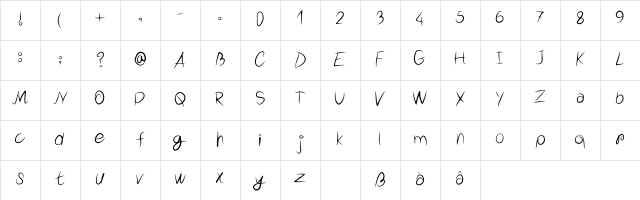
Hair Thinned Regular
Design Context for Hair Thinned Typeface
Hair Thinned is a composed and adaptable typeface that performs quietly and consistently across a wide range of design contexts. The delicate stroke weight brings airiness and refinement to layouts.